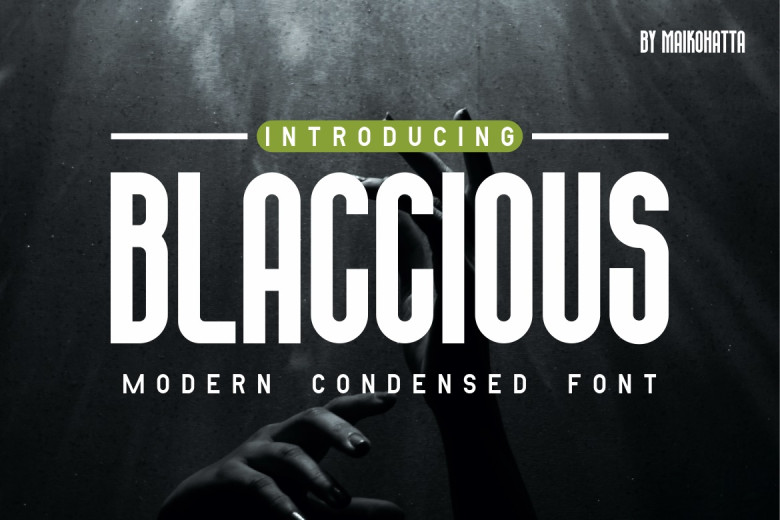
Blaccious Font is a type of font distinguished by letters that have slimmer or smaller letters than traditional or wide fonts, often used in various printing materials, graphic designs and other media due to their distinct benefits and distinguishing characteristics.
Blaccious Sans Serif Font